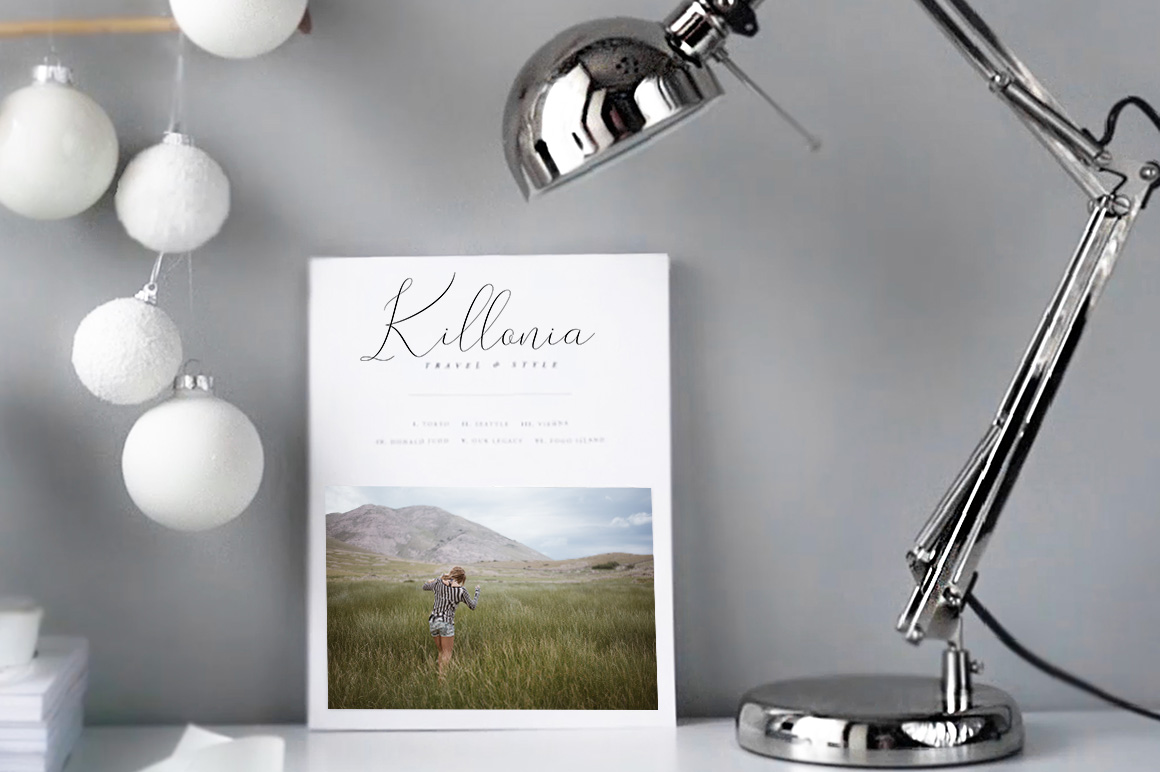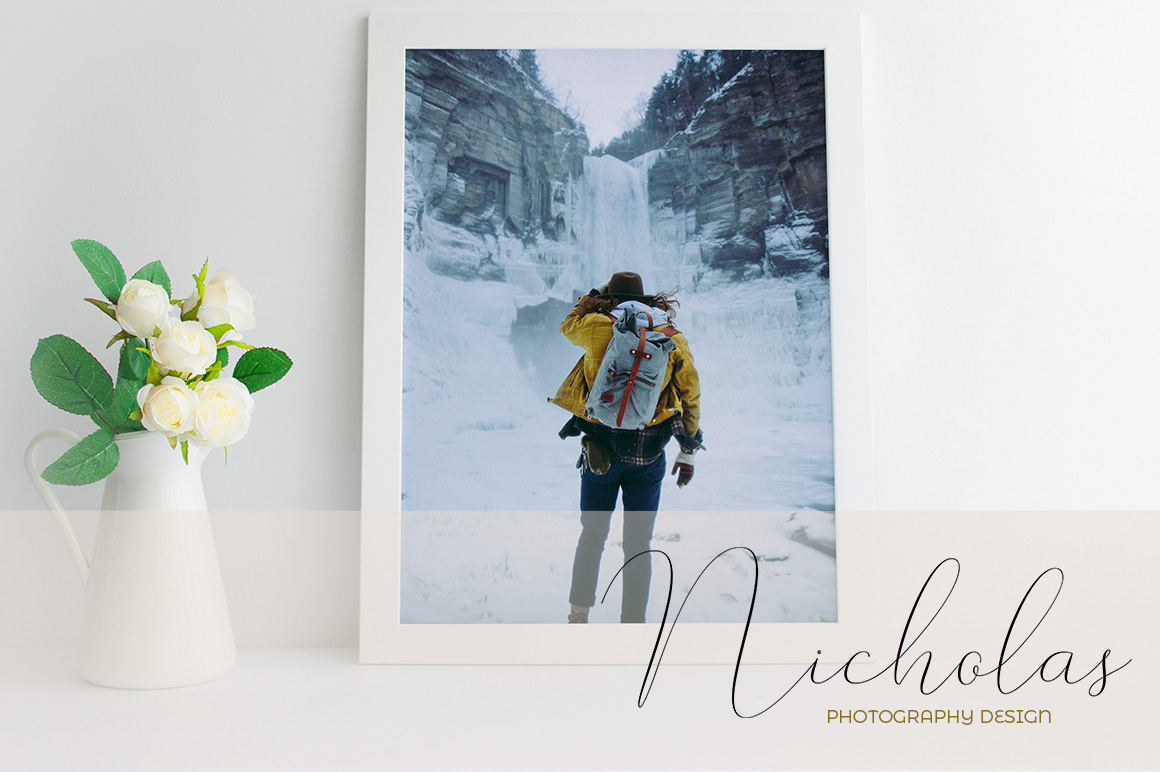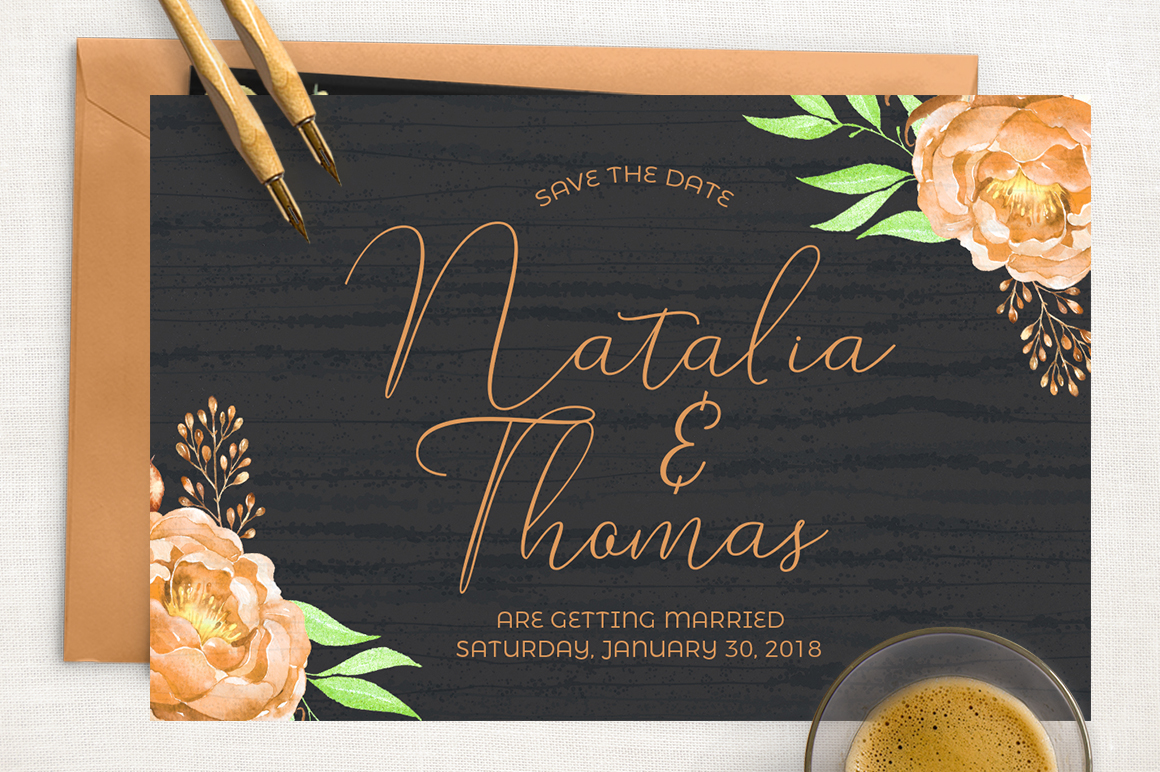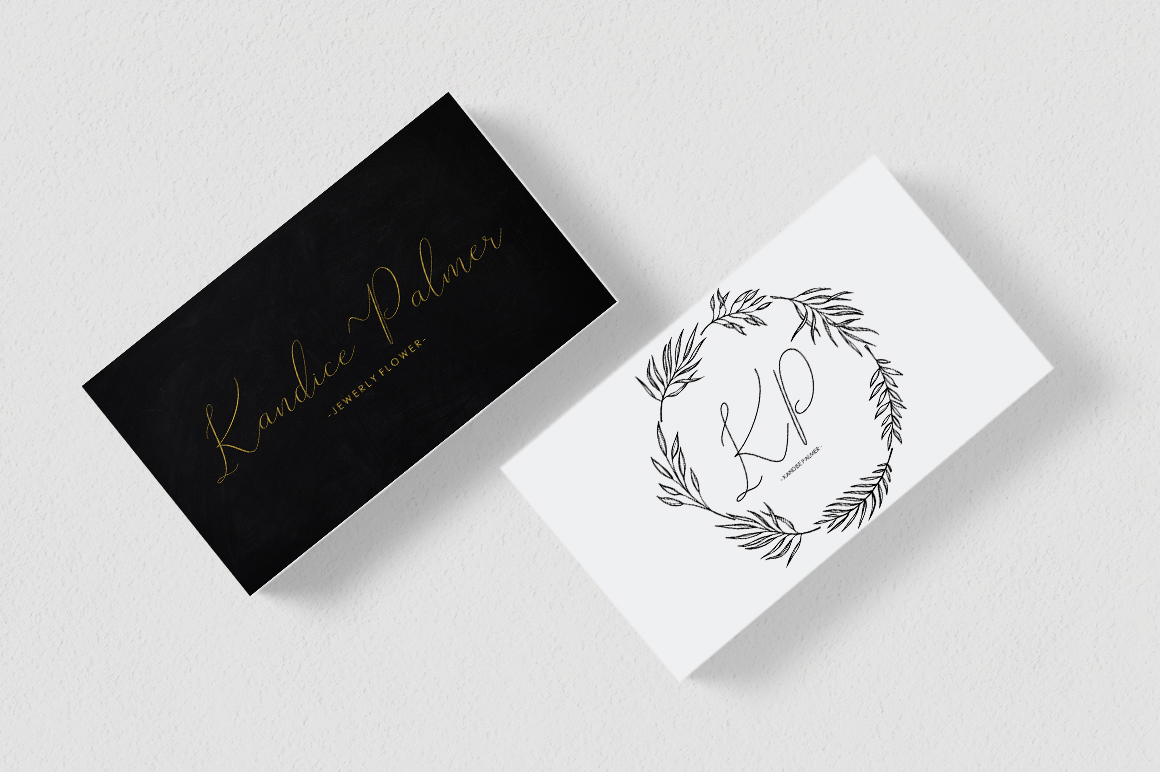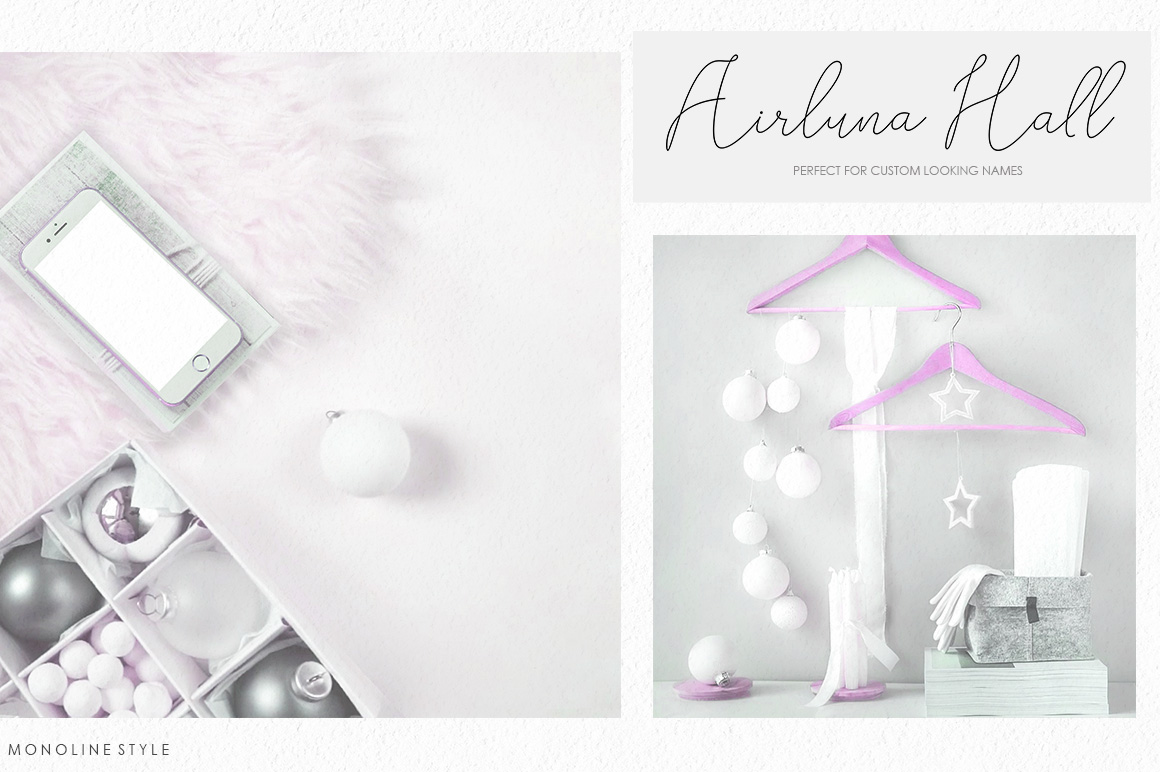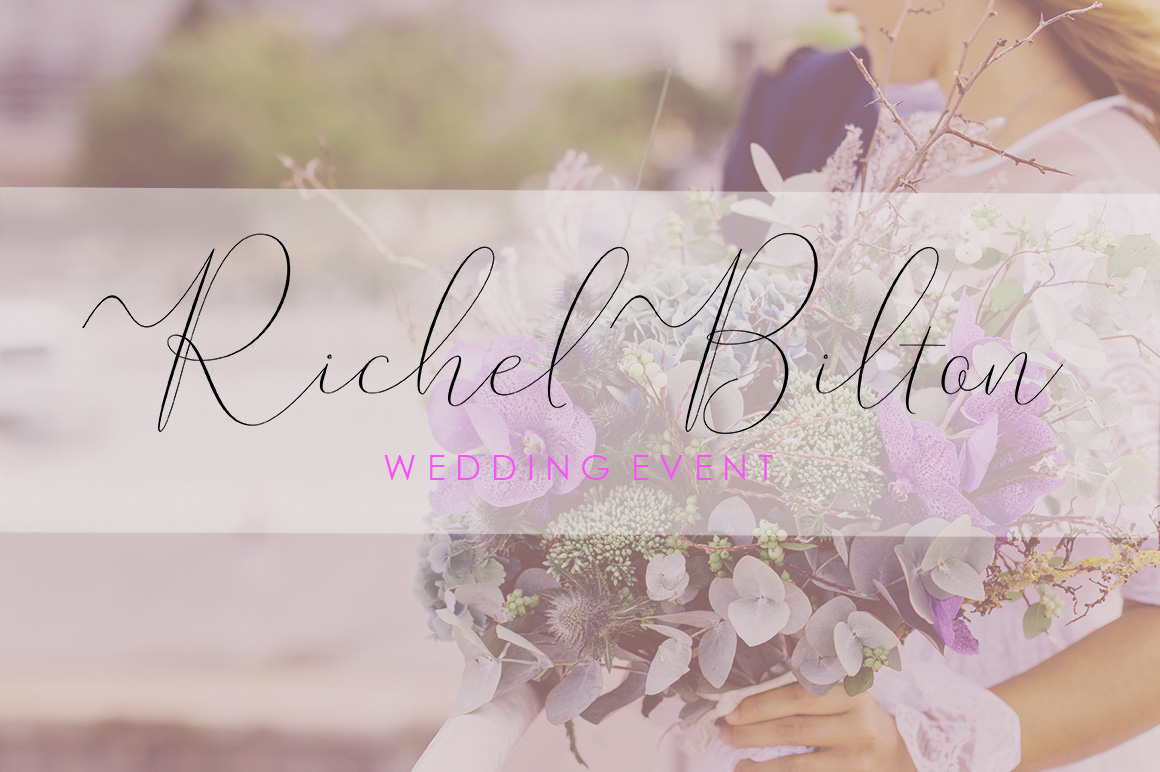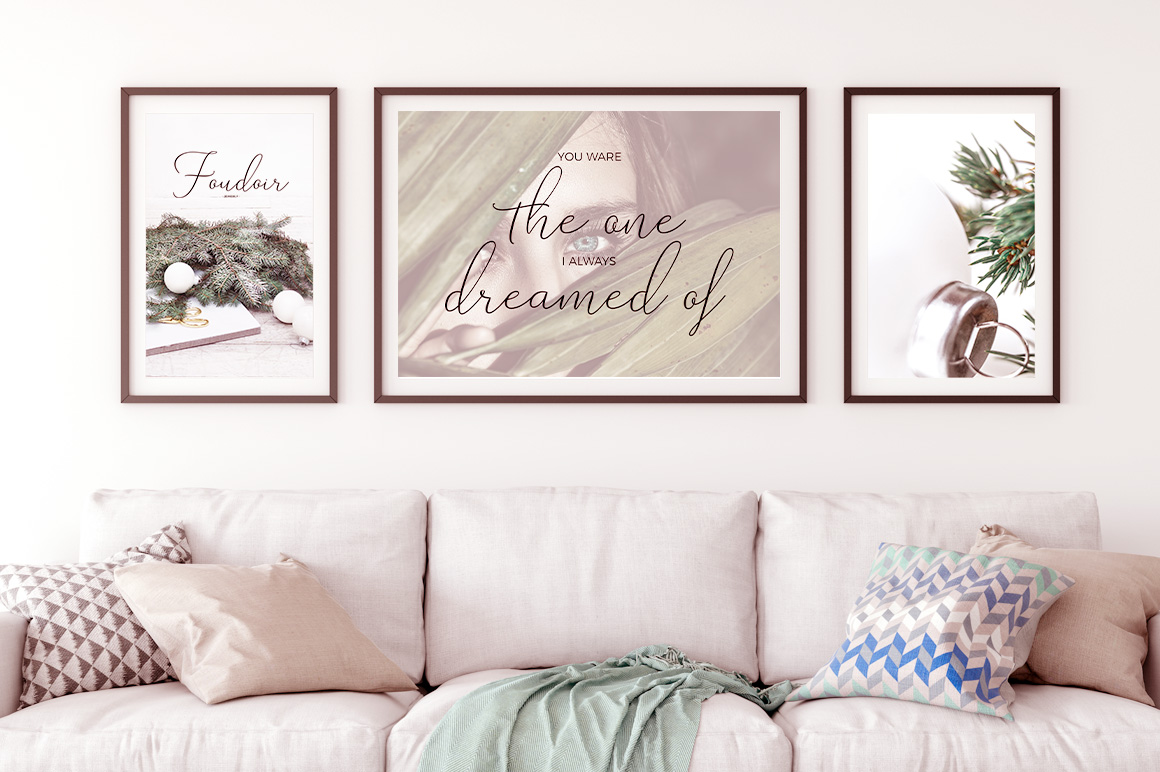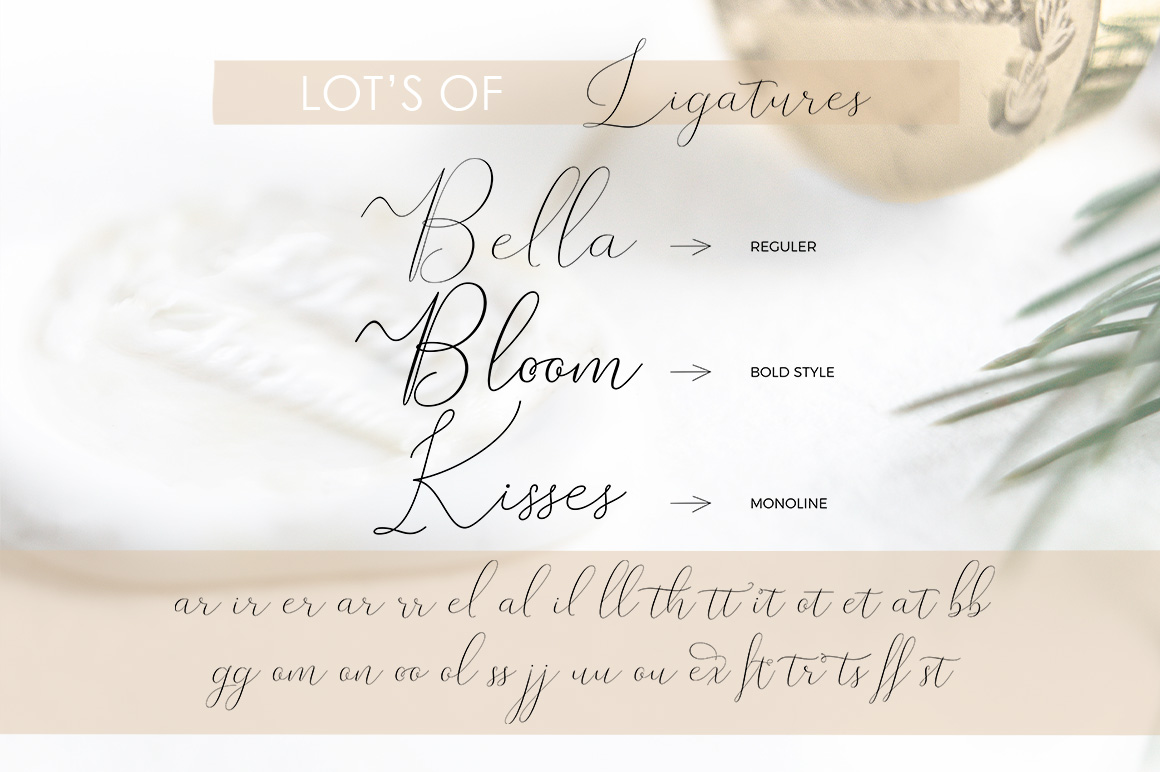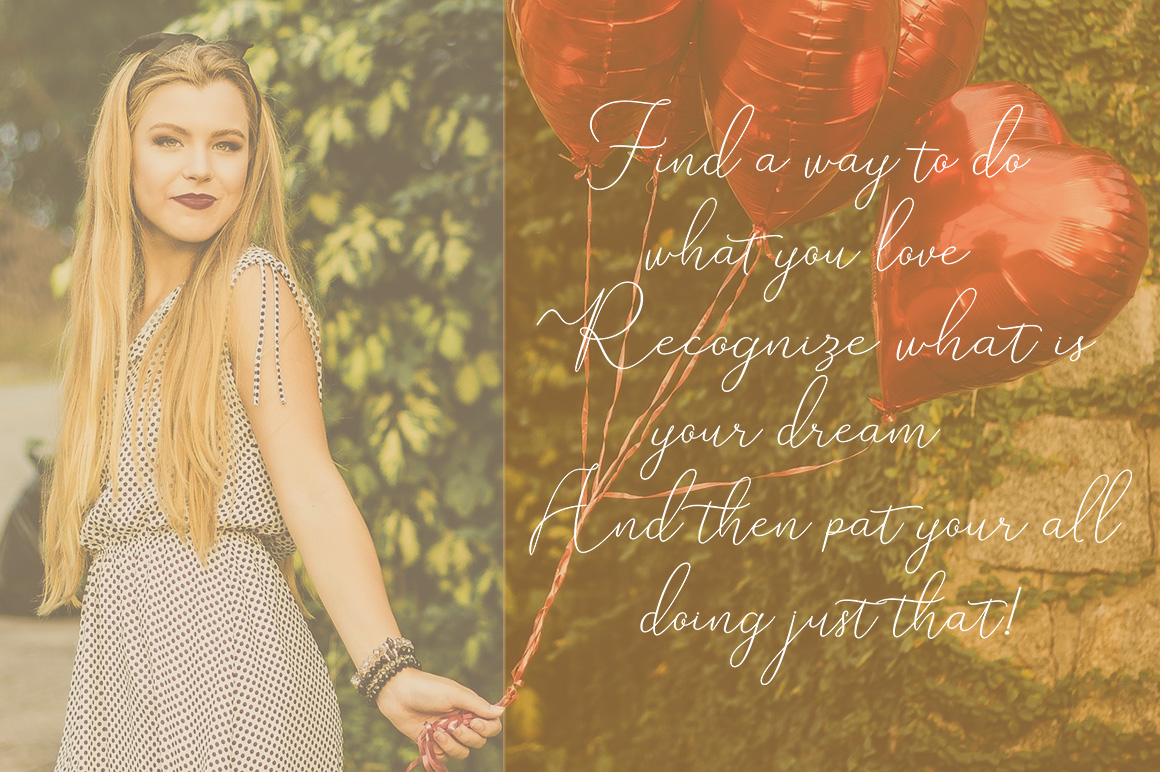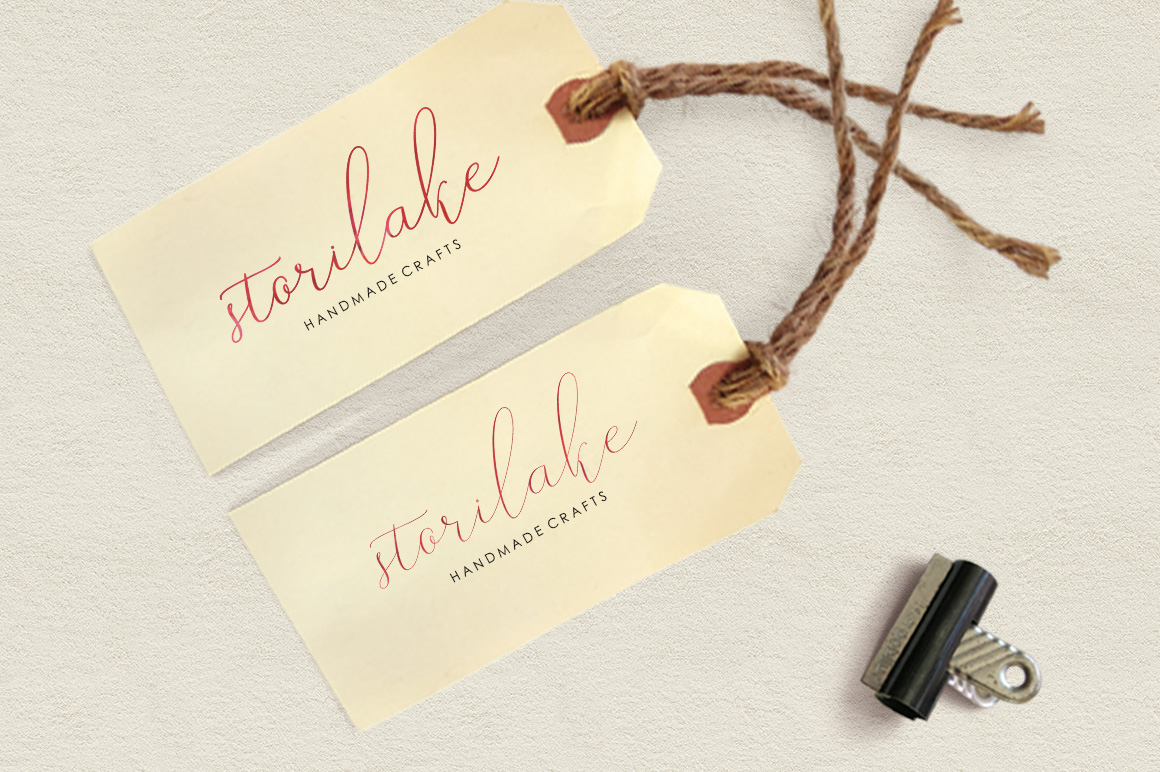
Rishella Font
About Rishella Font
Rishella is a elegant signature font.
Because the font is constructed with very thin lines, it has a classy look, which looks great on personal and luxury corporate designs.